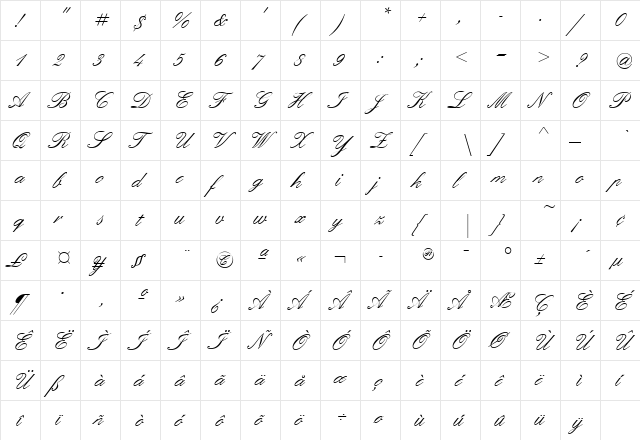
EnglishScriptEF Regular
| Foundry | \(c\) Elsner+Flake |
Design Context for EnglishScriptEF Typeface
EnglishScriptEF brings a calligraphic fluidity to the page — its connecting strokes and expressive curves give it an unmistakably human quality.
Font Pairing: Combine EnglishScriptEF with a simple geometric sans for maximum contrast — the tension between flowing curves and clean structure is a classic typographic pairing.
Pro Tip: Use EnglishScriptEF for short runs of text — names, titles, or taglines. Extended body copy in script faces tires the eye quickly.